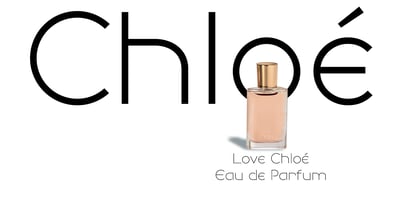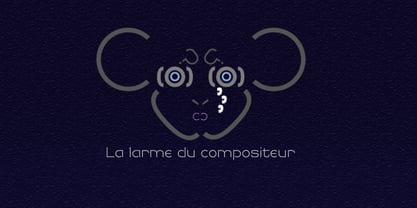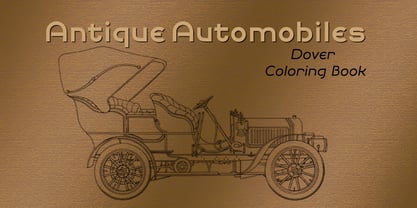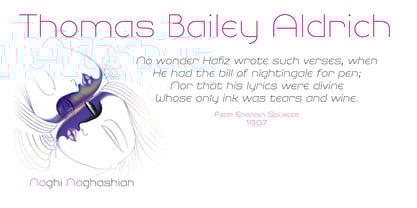
NaNa Pro Font
This NaNa Pro Font is perfect for playful children's branding, family-friendly business materials, adorable product packaging, sweet confectionery labels, nursery design projects, cheerful toy company graphics, loving grandmother-themed businesses, warm family restaurant signage, cute baby product designs, and endearing personal brand communications.
What makes this NaNa Pro Font exciting is its heartwarming playfulness that captures the loving spirit and gentle charm of family connections and childhood wonder. The font features sweet letterforms with friendly curves that convey warmth, affection, and innocent joy. Its loving character and family-focused appeal make it ideal for brands seeking to communicate family values, childhood happiness, and nurturing care in family-oriented and children's markets.
The NaNa Pro Font family includes light, regular, medium, and bold weights with playful alternates, family-friendly variants, and adorable flourishes. This comprehensive loving font family provides designers with heartwarming typographic tools to create sweet compositions while maintaining the family character essential for children's brands and family-oriented business communications.
Family businesses and children's brands consistently choose NaNa Pro Font Free Download for projects requiring authentic family appeal and nurturing charm. This font's distinctive loving character perfectly captures the family warmth and childhood joy that resonate with audiences who appreciate family values, children's happiness, and brands that celebrate loving family relationships.
The nurturing construction of NaNa Pro Font showcases lovingly crafted letterforms with family proportions that ensure exceptional warmth across all family applications. Its sweet appearance and caring character create memorable connections while maintaining the readability necessary for effective family communication and children's brand materials.
Professional designers appreciate how NaNa Pro Font brings immediate family warmth and nurturing appeal to brand communications. The font's loving nature allows organizations to communicate family values and childhood joy while maintaining the professional quality necessary for effective positioning in family-oriented and children's markets.
The endearing appeal of NaNa Pro Font makes it particularly effective for brands emphasizing family connections, childhood wonder, and nurturing care. Its sweet character resonates strongly with audiences who appreciate family traditions, children's happiness, and brands that celebrate the loving bonds between generations and family members.
Whether developing branding for family restaurants or creating materials for children's educational programs, NaNa Pro Font Free Download provides the loving typographic foundation that family brands need to communicate their nurturing care, family warmth, and the heartwarming joy that defines loving family relationships and childhood happiness achievement.